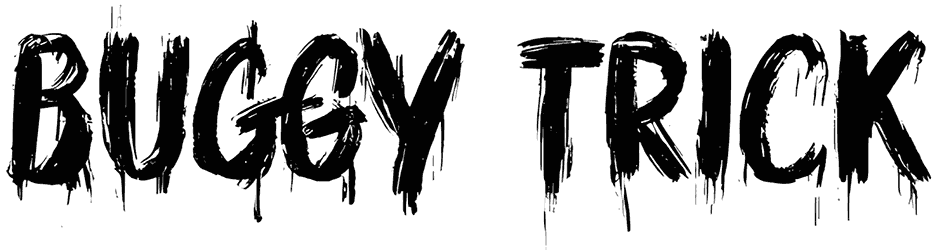
Buggy Trick Font
When it comes to the art of horror, Buggy Trick will enter the field with its exciting and scary characters. This dripping font has a bloody grimace that can whisper your message in the ear of the audience with an eerie sound.
This horror font is a scary tool without numbers and small letters, which is very successful in supporting scary themes. For this reason, it is one of the first choices for horror movie posters or crime book covers.